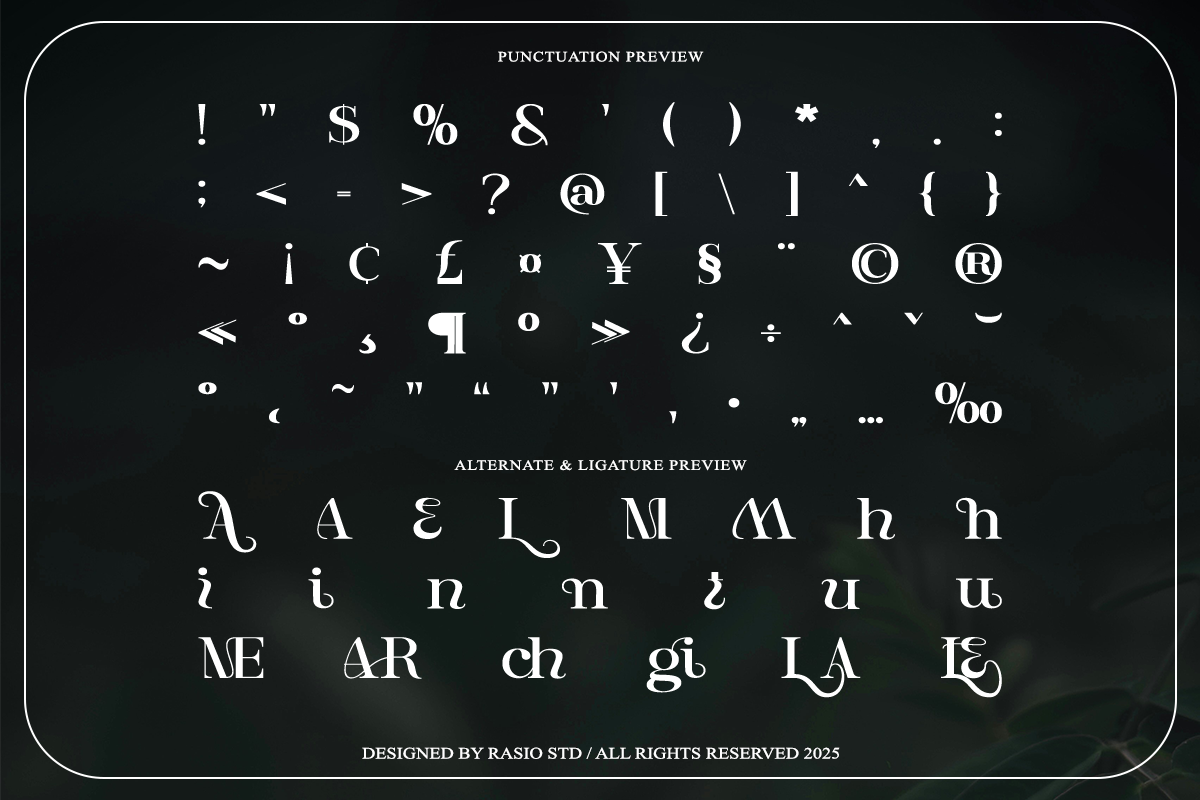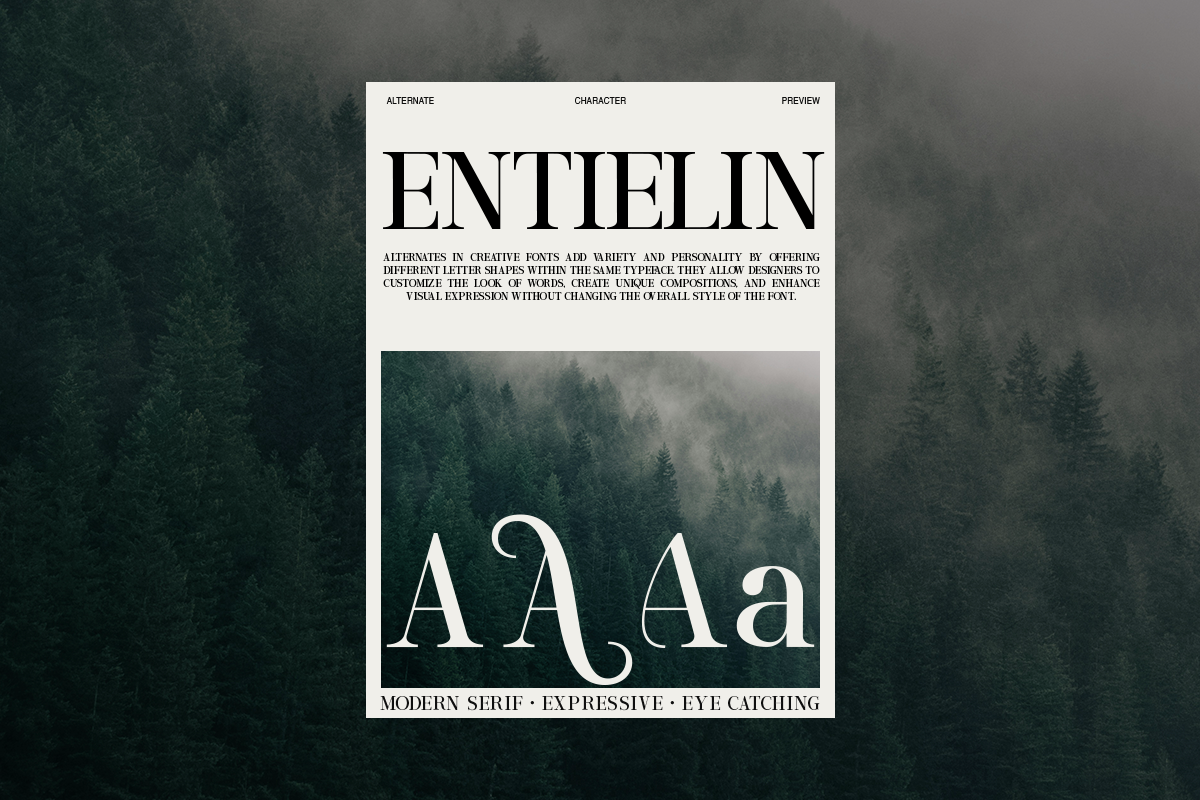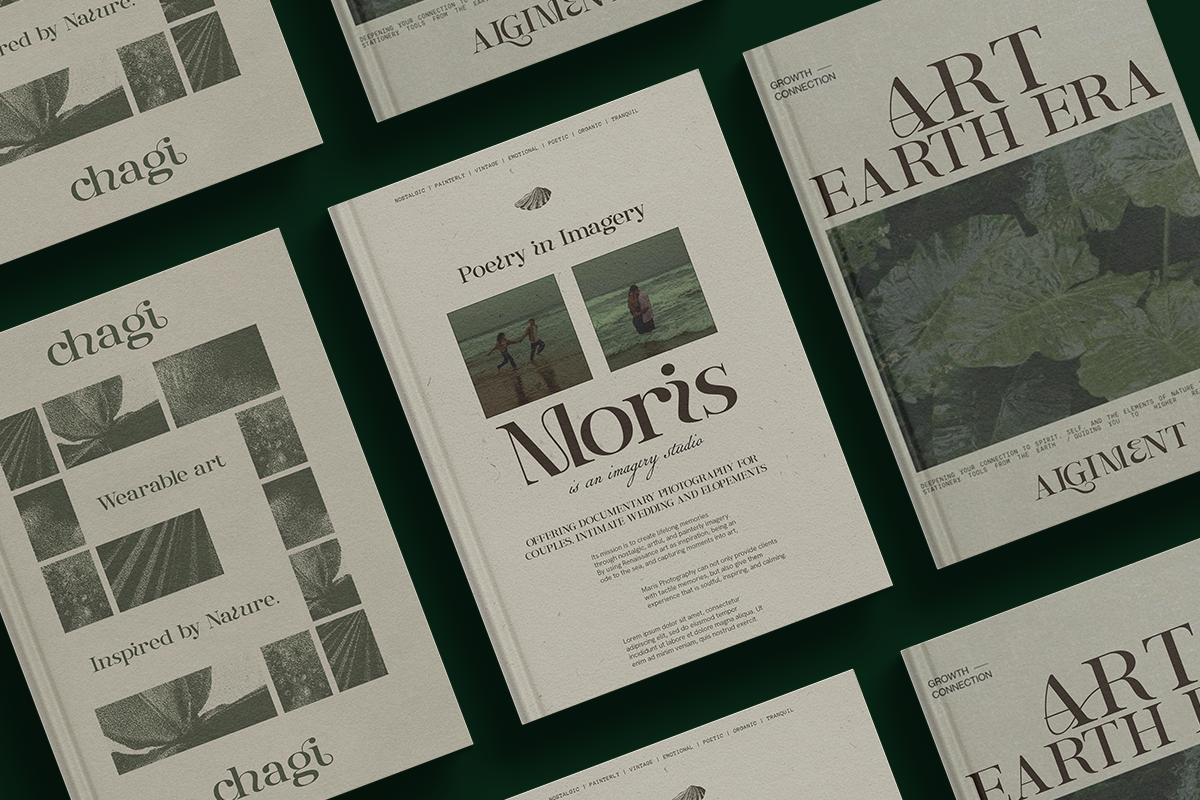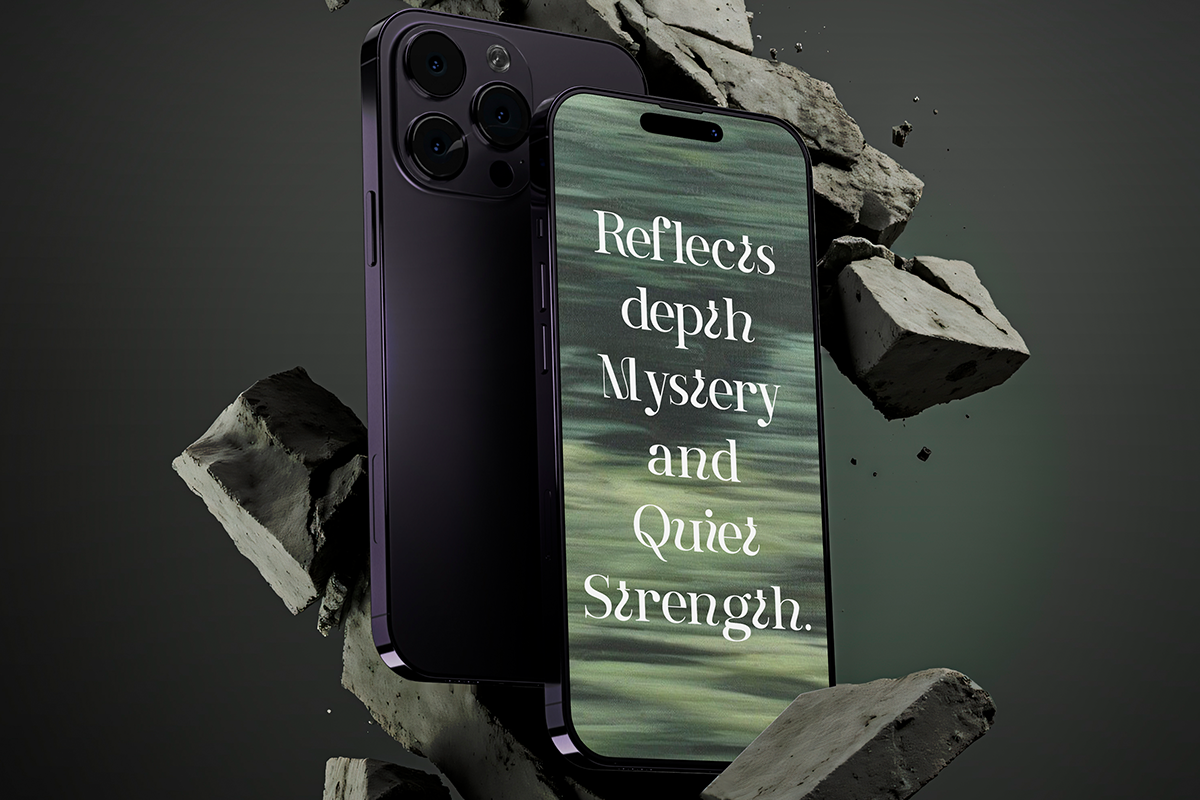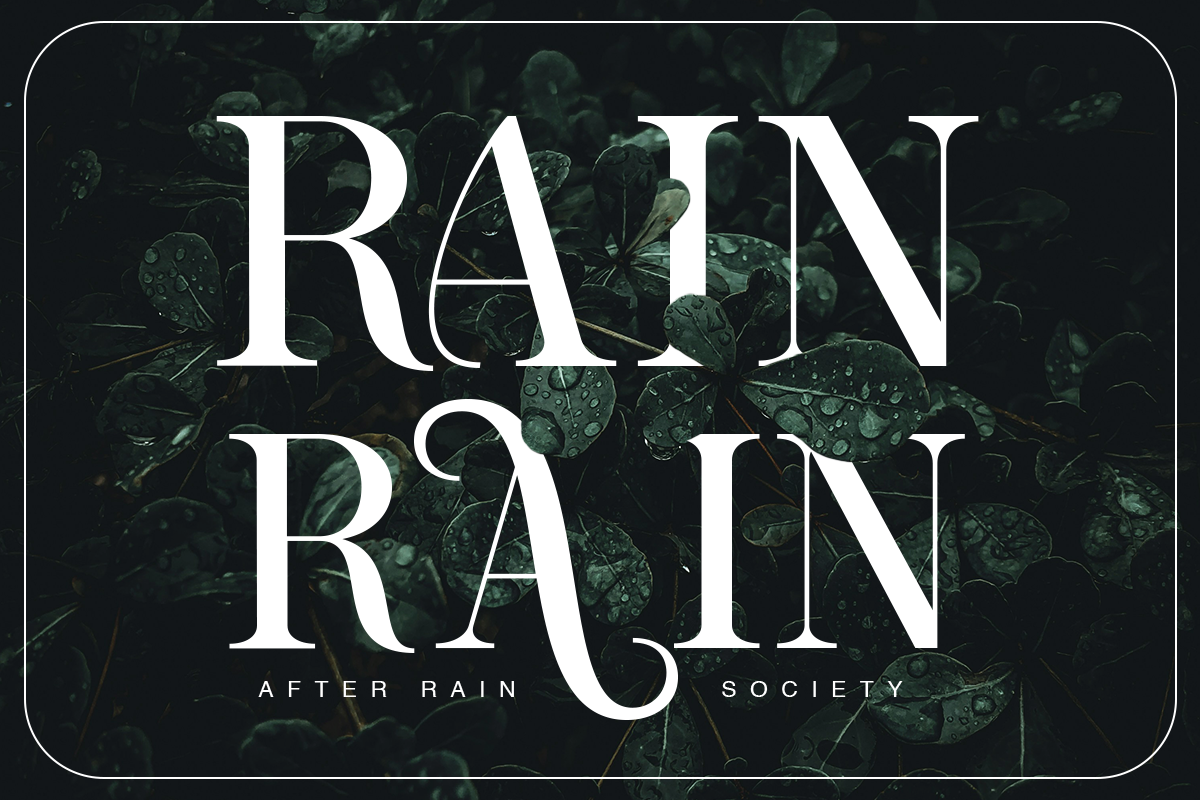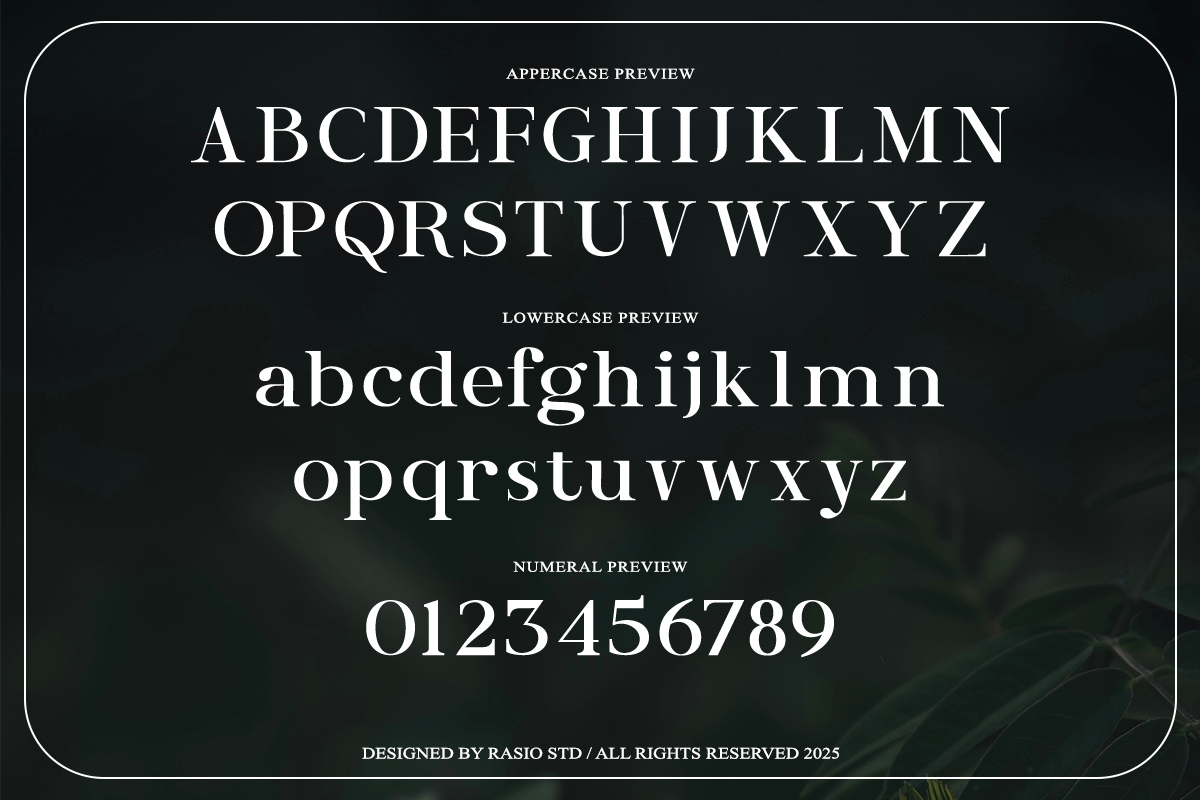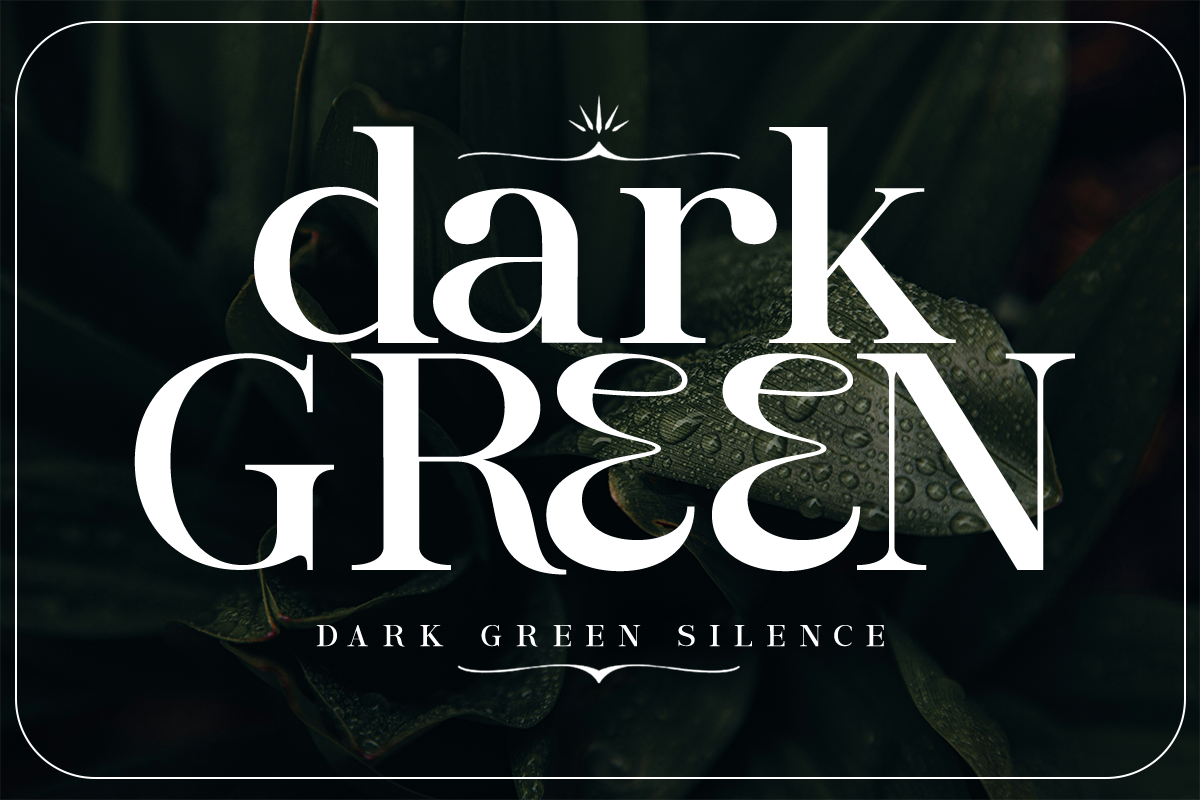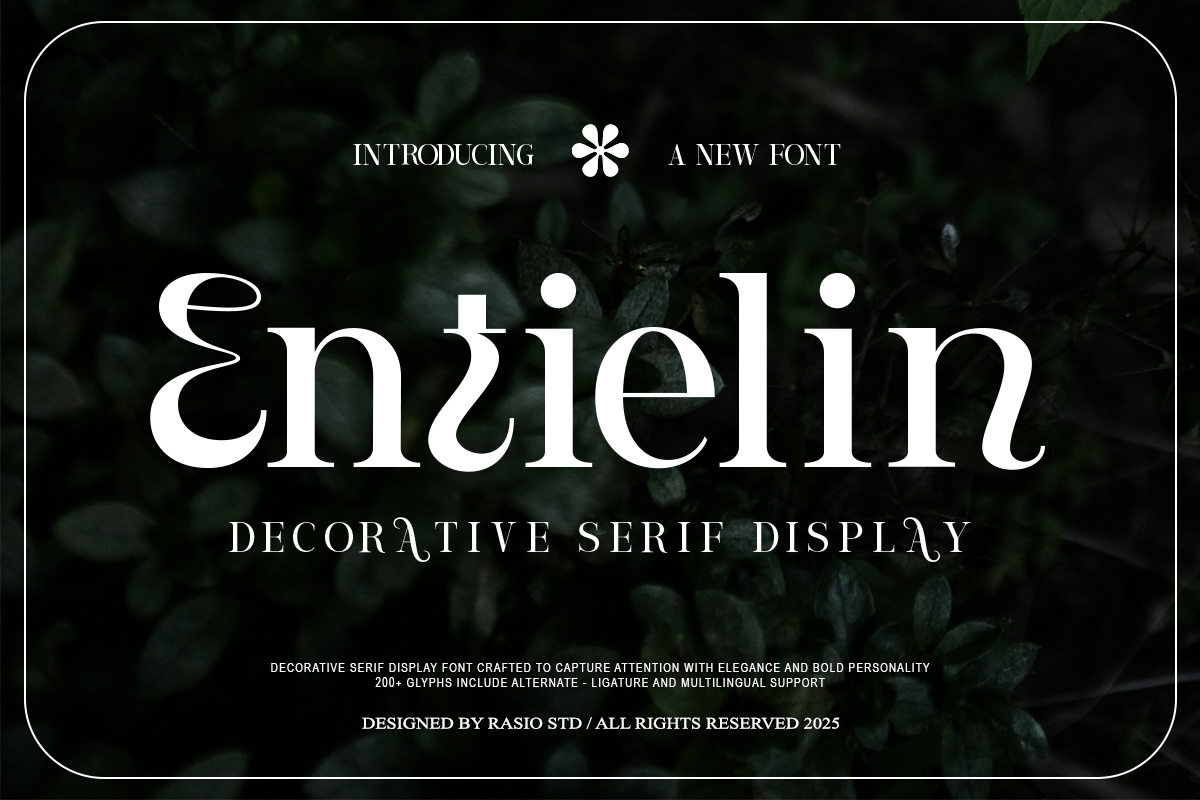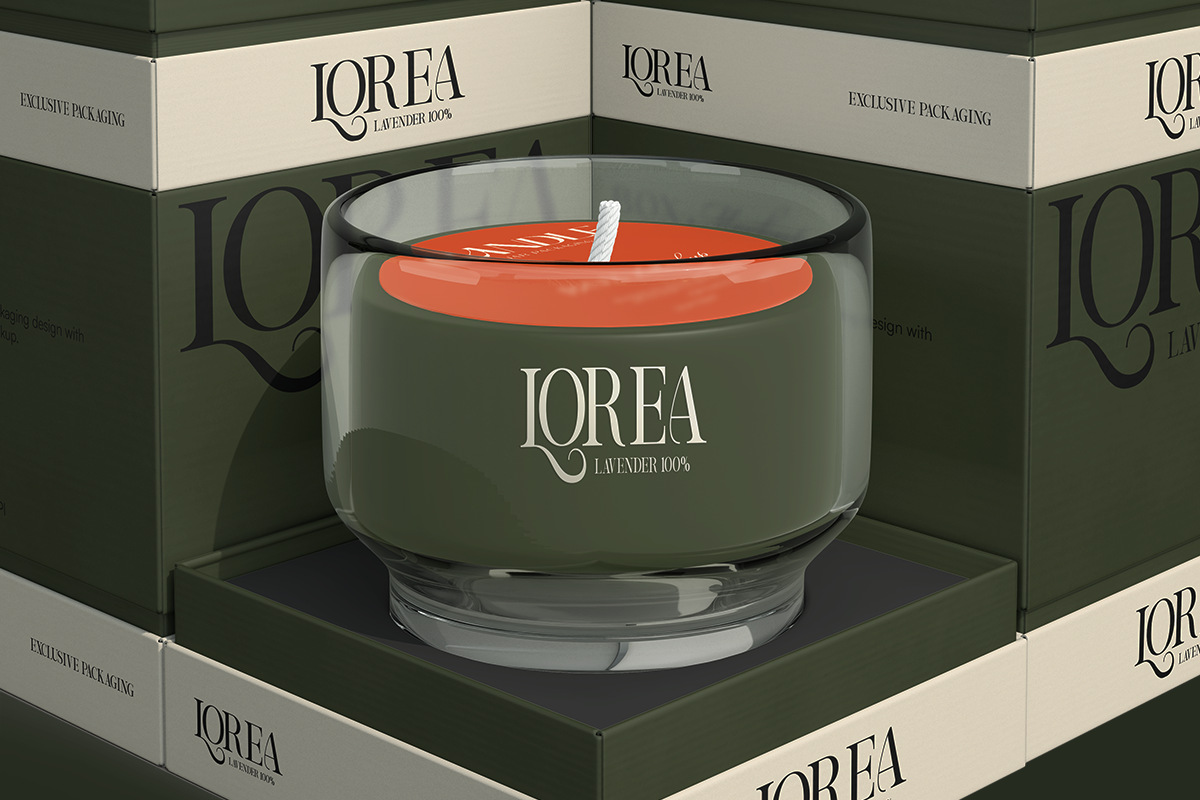
Entielin Decorative Serif Font
Entielin is a decorative serif display font crafted to capture attention through expressive form and refined elegance. Designed with over 200 glyphs, including alternate characters and ligatures, this font offers a variety of visual options to enhance any creative project. The letterforms are bold yet sophisticated, making Entielin ideal for standout headlines, logos, and branding materials that need a distinct serif identity. It supports multilingual characters, uppercase, lowercase, numerals, and punctuation, providing full flexibility for both digital and print applications
Relevance and Uses Cases is perfect for retro branding, nostalgic product packaging, café and bakery identity, wedding invitations, warm greeting cards, merchandise titles, vintage posters, handwritten quotes, lifestyle editorials, and any creative project that needs expressive serif personality.
- Decorative serif structure with elegant high-contrast strokes
- Distinctive curved terminals and subtle ornamental details
- Expressive letterforms with a refined editorial character
- Balanced proportions with graceful transitions for visual harmony
- Classic serif foundation blended with artistic modern styling
- Luxury brand identity and elegant visual branding systems
- Fashion editorials, magazine headlines, and artistic layouts
- Perfume, skincare, and premium product packaging
- Wedding stationery and romantic event designs
- Cinematic posters, mood-based visuals, and storytelling graphics
Command attention with Entielin a decorative serif display font